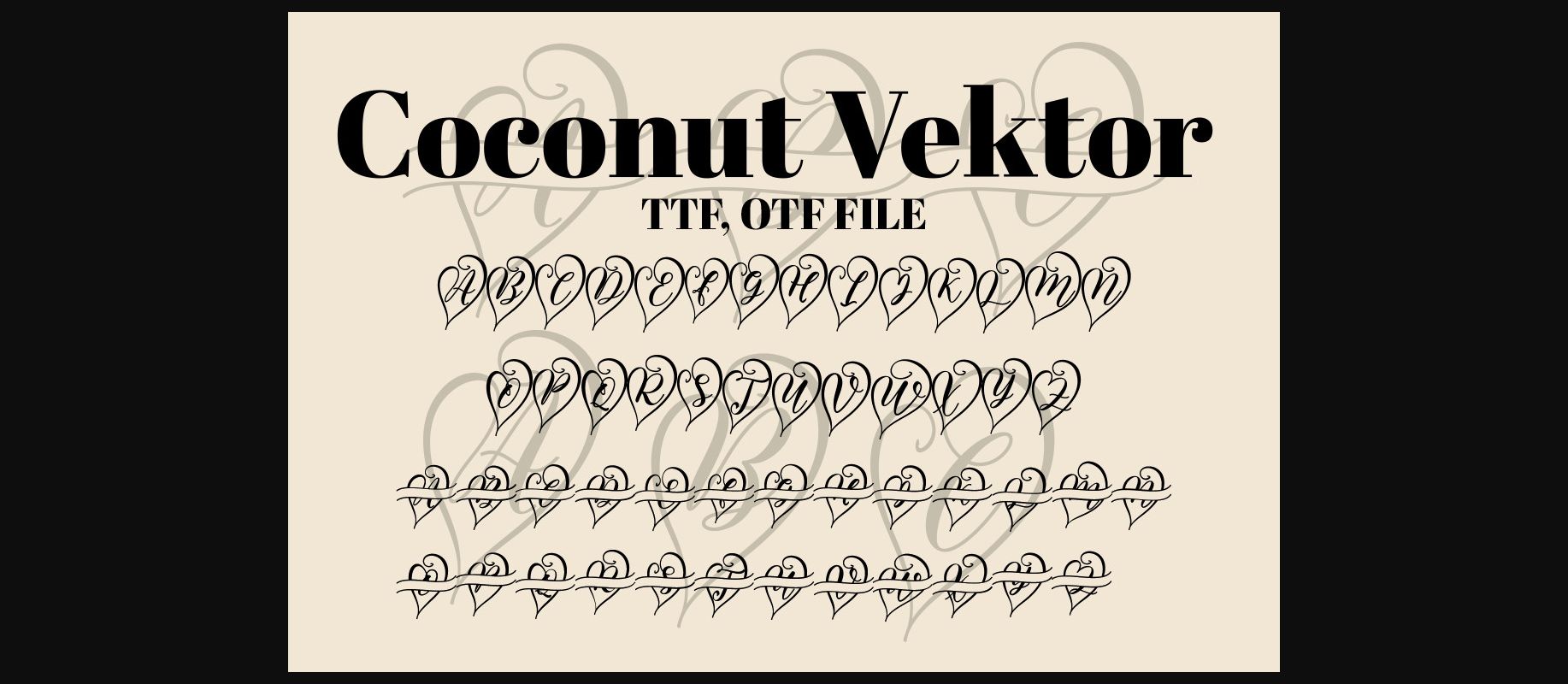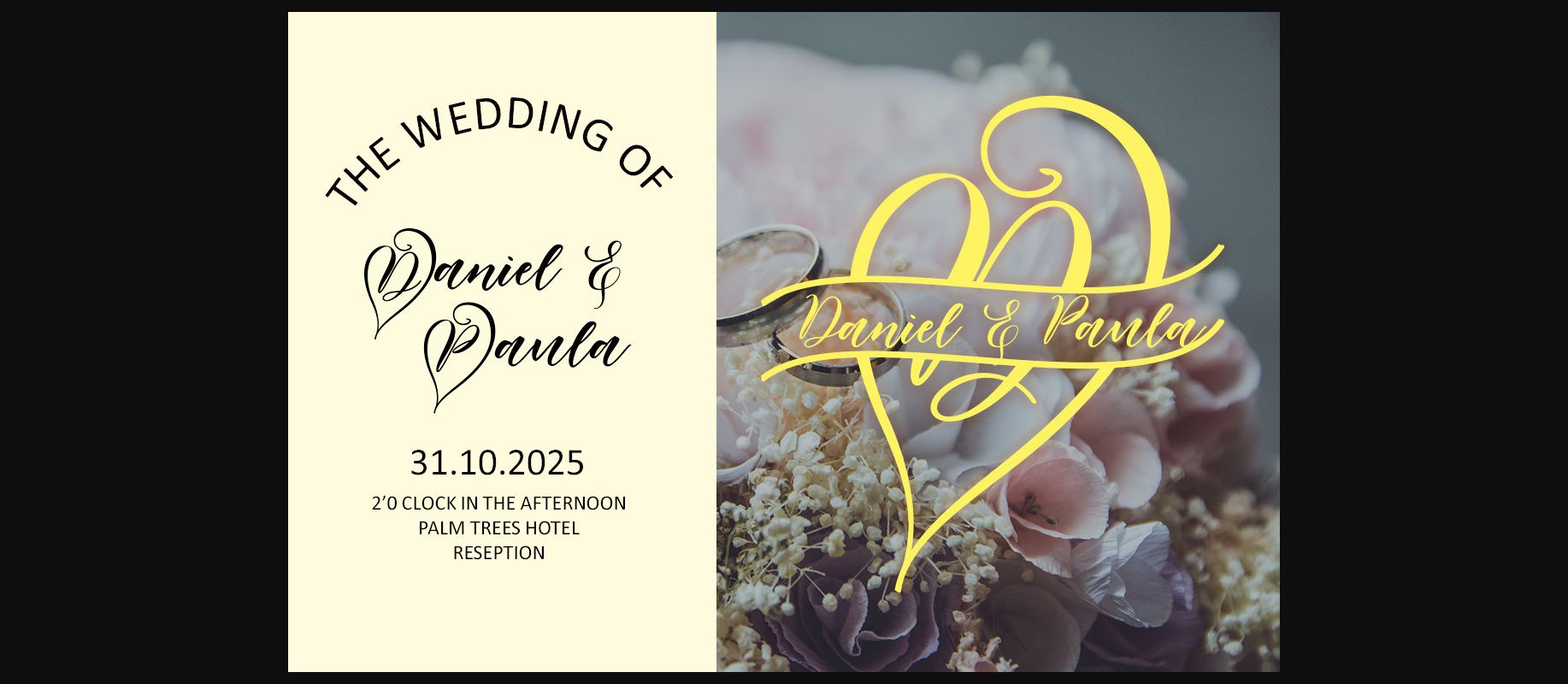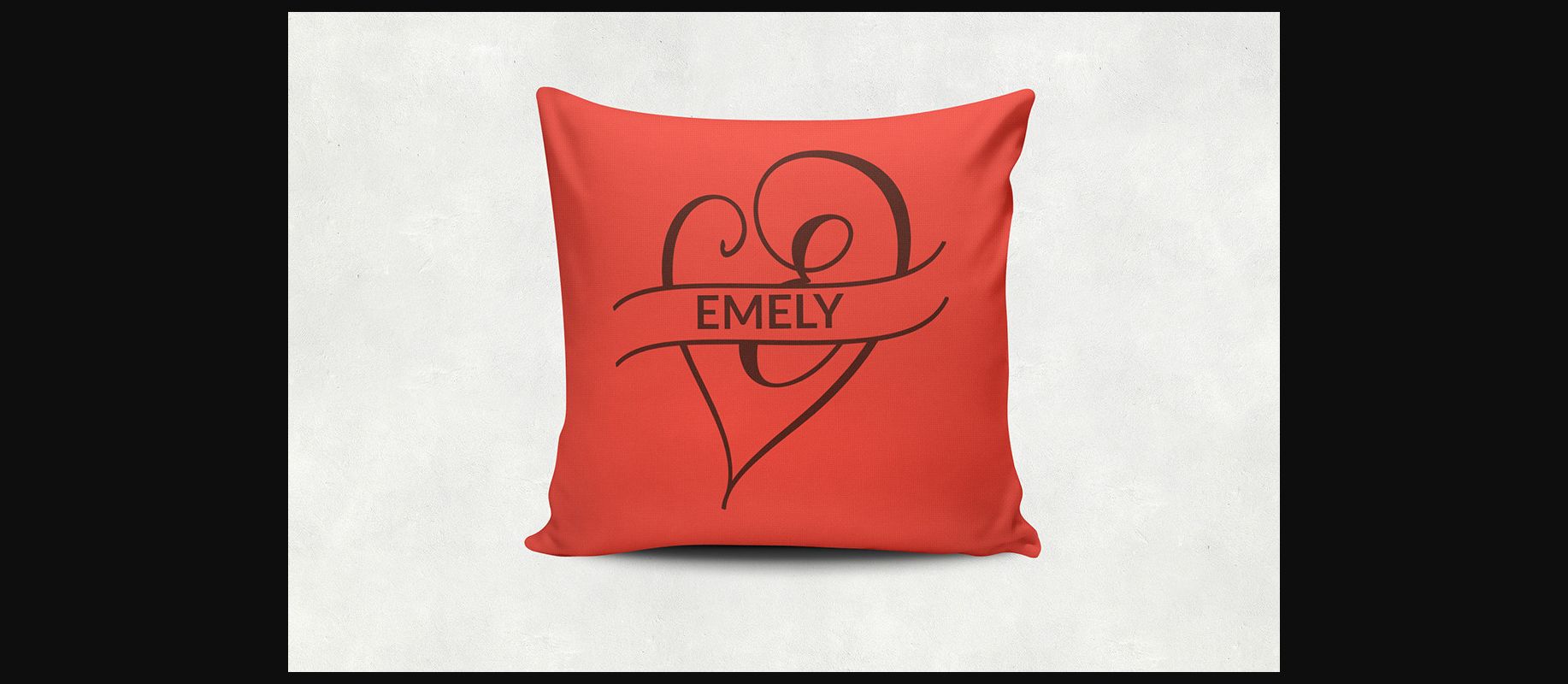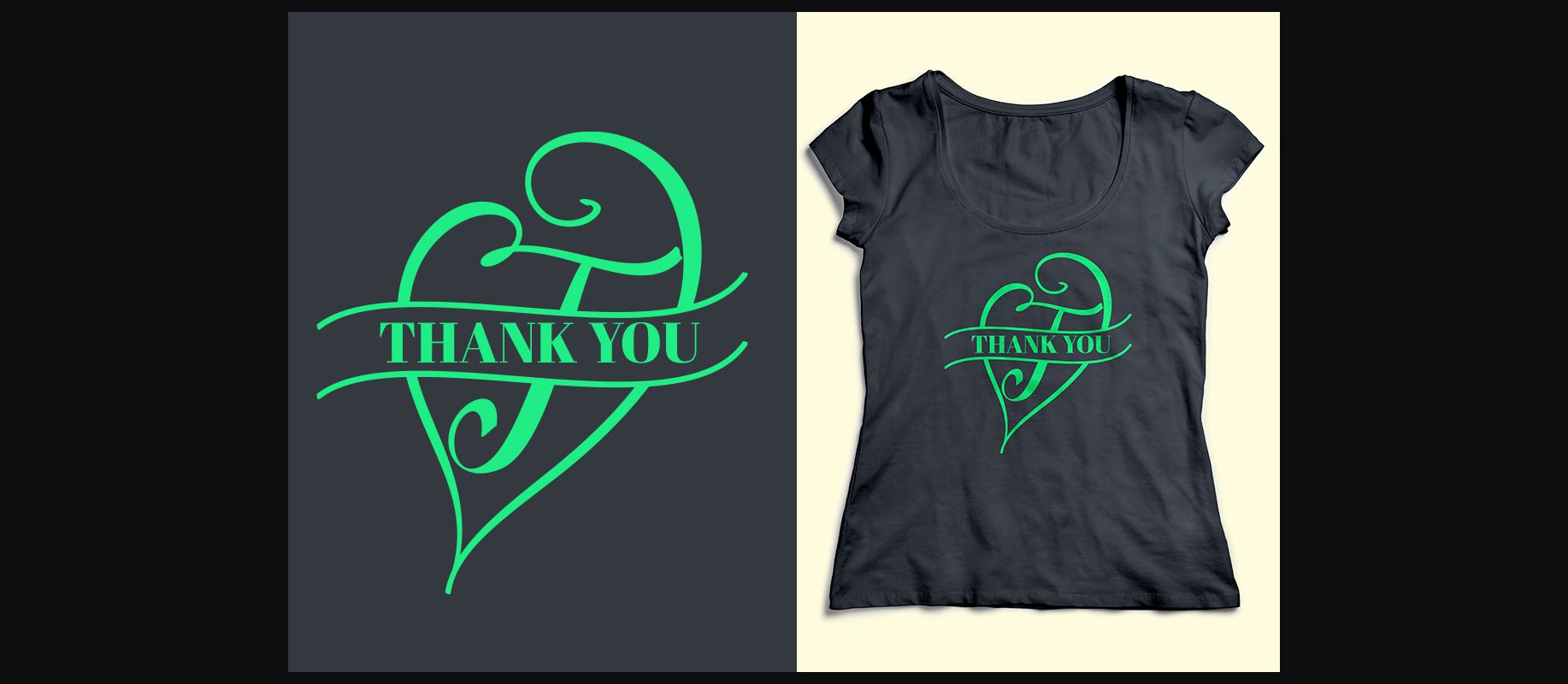
HomeDecorative FontsCoconut Vector Font Decorative Fonts Coconut Vector Font FacebookXPinterestWhatsApp 1 of 6 ... Coconut Vector Font Poster 2... Coconut Vector Font Poster 3... Coconut Vector Font Poster 4... Coconut Vector Font Poster 5... Coconut Vector Font Poster 6... About Coconut Vector Font Coconut Vector is a dainty and unique decorative font. Add this romantic and lovely looking font to each of your love letters, wedding invitations or favorite design ideas, and you will be astounded by the outcome. DOWNLOAD NOW People also explored Missgivelove Font Thequilla Font Glenthya Habithan Font Kumisen Font Bokeseni Black Expanded Italic Font Griffin Friendship Almeera Font Square Lily Floral Monogram Font 304 0 TagsCoconut Vector Font Previous articlePumpkin Crafty FontNext articleSkull Halloween Font LEAVE A REPLY Cancel reply Comment: Please enter your comment! Name:* Please enter your name here Email:* You have entered an incorrect email address! Please enter your email address here Website: Save my name, email, and website in this browser for the next time I comment. Personal Use Free BD Nokio Personal Use Free Read more about this font Rasiday Personal Use Free Read more about this font Adeline Personal Use Free Read more about this font Callisa Script Personal Use Free Read more about this font BLOG How to Install and Use Fonts on Windows, macOS, and Web Projects How to Install and Use Fonts on Windows, macOS, and Web Projects Fonts are a crucial part of design and branding. Whether you’re designing a... Where to Buy American Fonts Online in 2024 Elegant Wedding Invitation Fonts – Handwritten & Script Fonts To increase your work productivity, choose the most readable fonts.